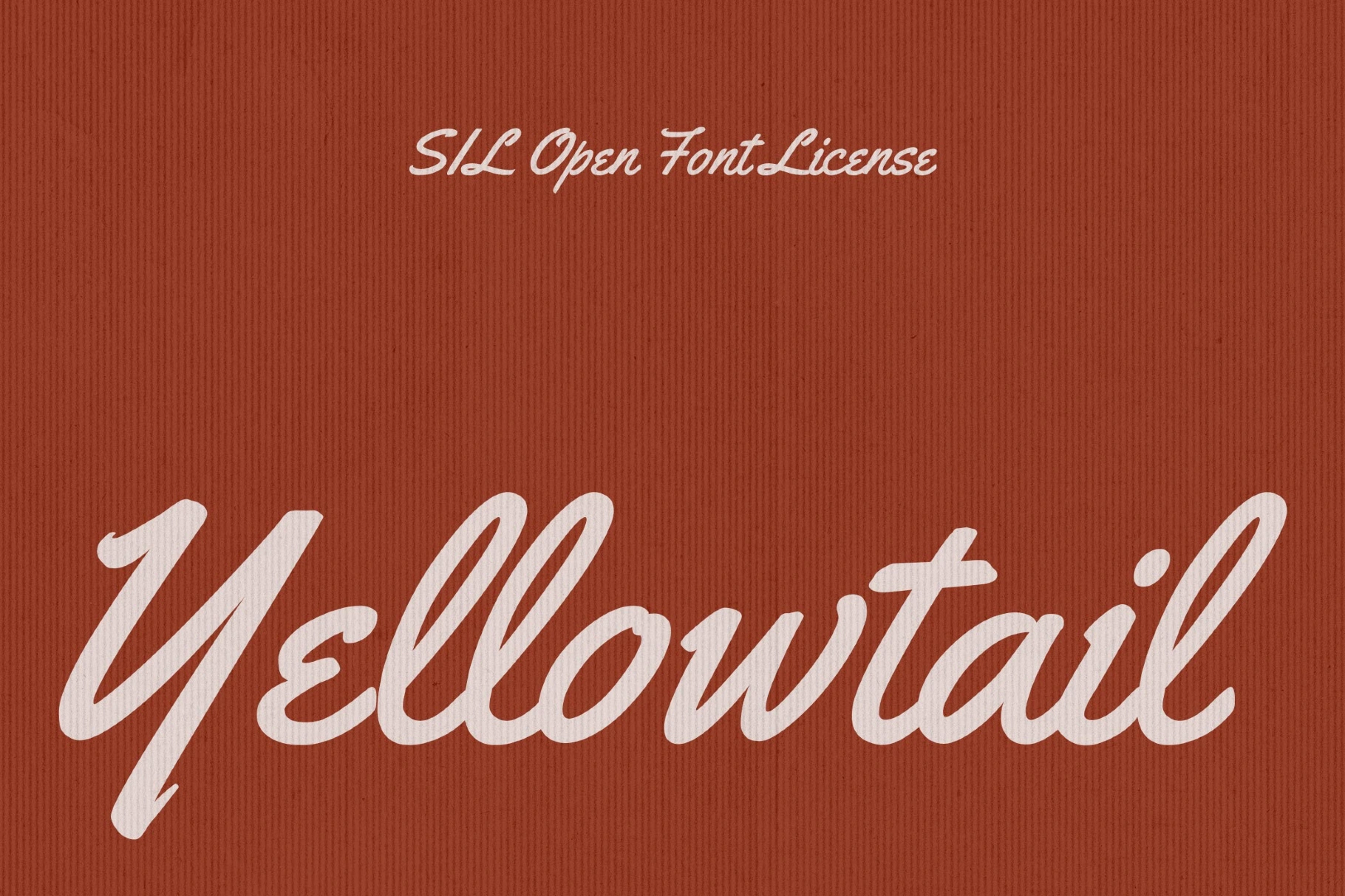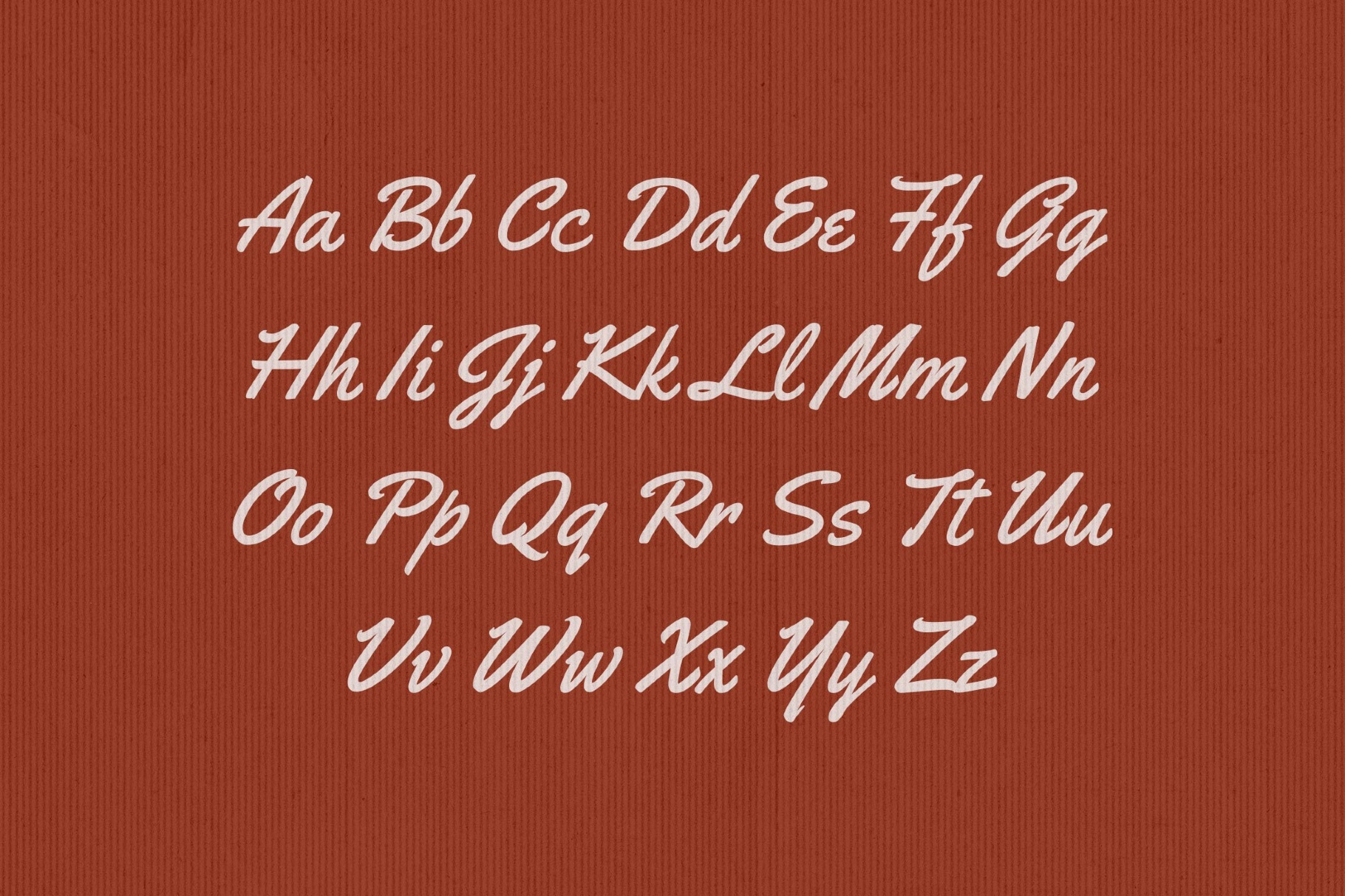
Yellowtail - Retro Postcard Font
Yellowtail is a monoline script with the breezy sweep of mid-century sign painting, diner menus, and roadside lettering from old California postcards. The type lends itself to logo work, café branding, poster headlines, packaging, editorial accents, social posts and event graphics.